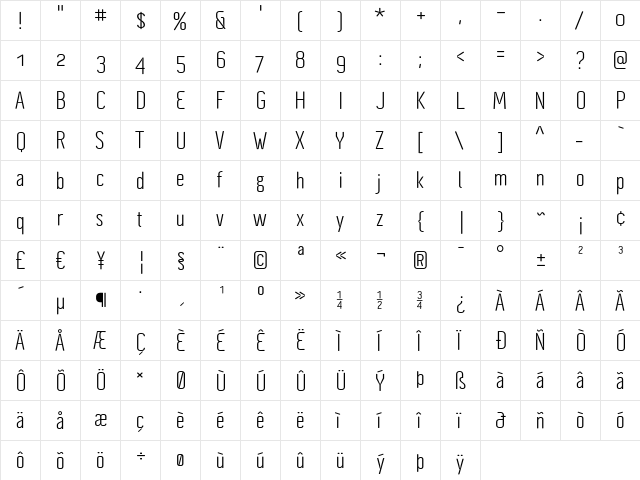
Cynapse Pro OSF Regular
| Foundry | Neil Summerour/Positype |
| Designer | Neil Summerour/Positype |
Design Context for Cynapse Pro OSF Typeface
Cynapse Pro OSF takes a measured approach to typography — its balanced proportions and neutral character make it a reliable workhorse for both digital and print work.